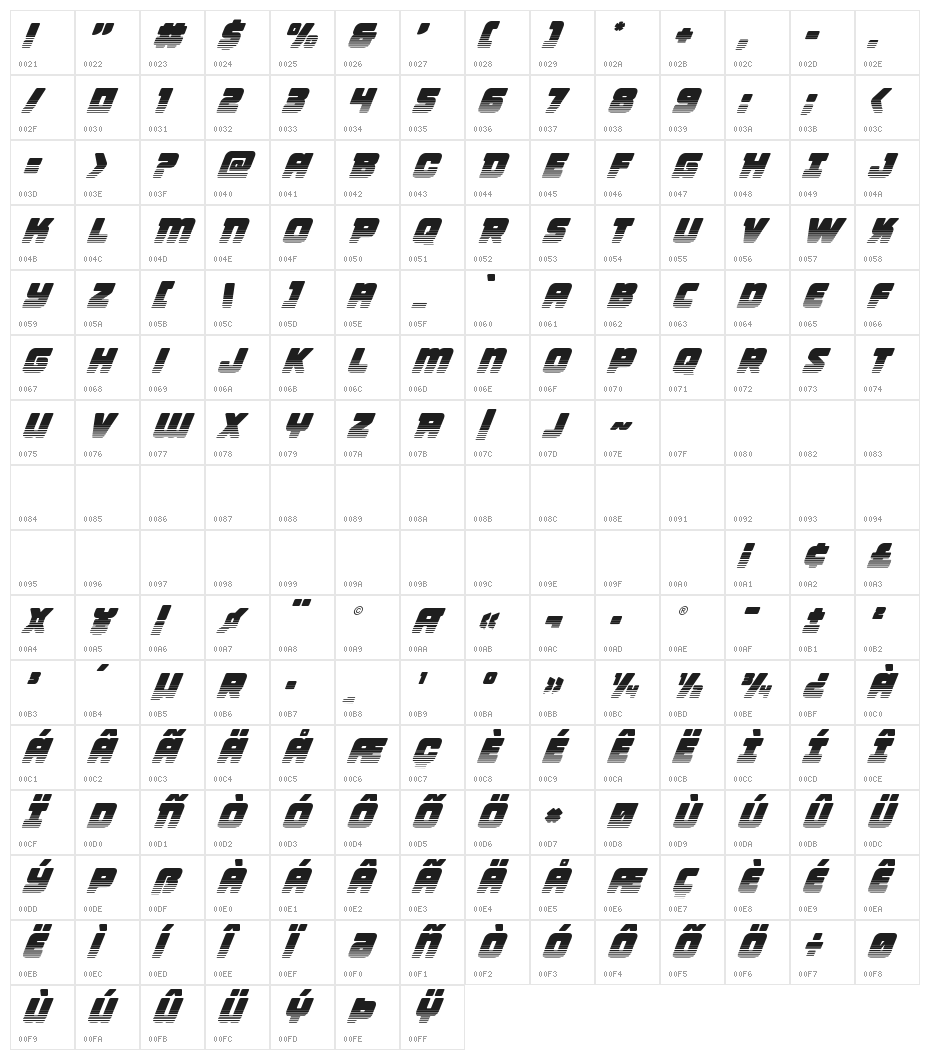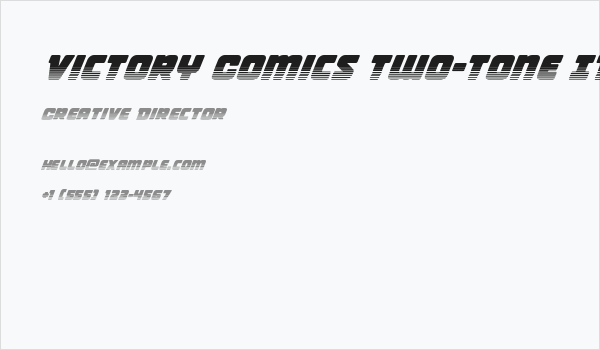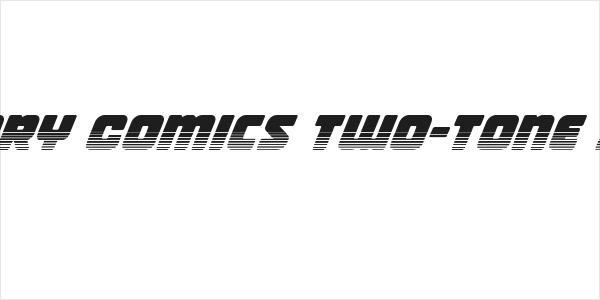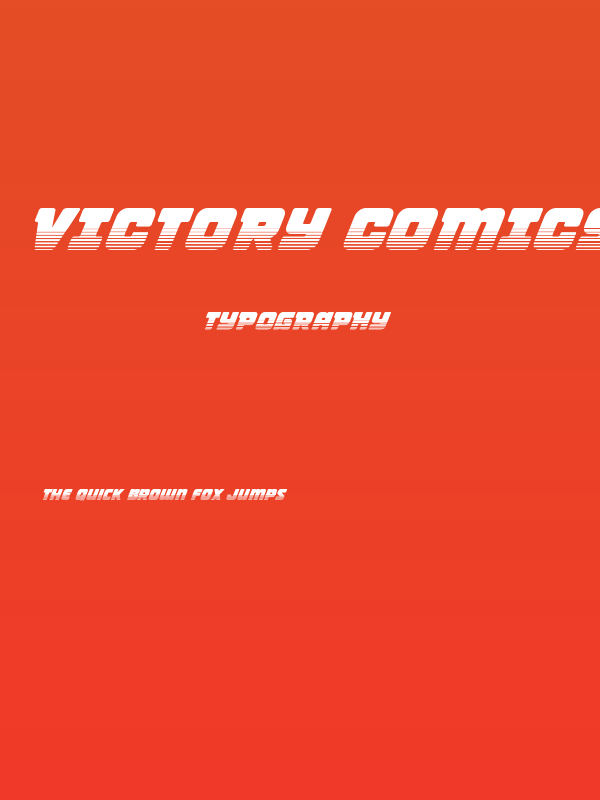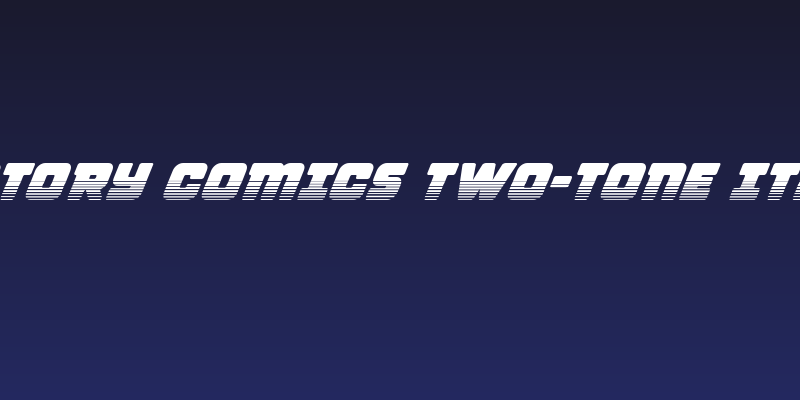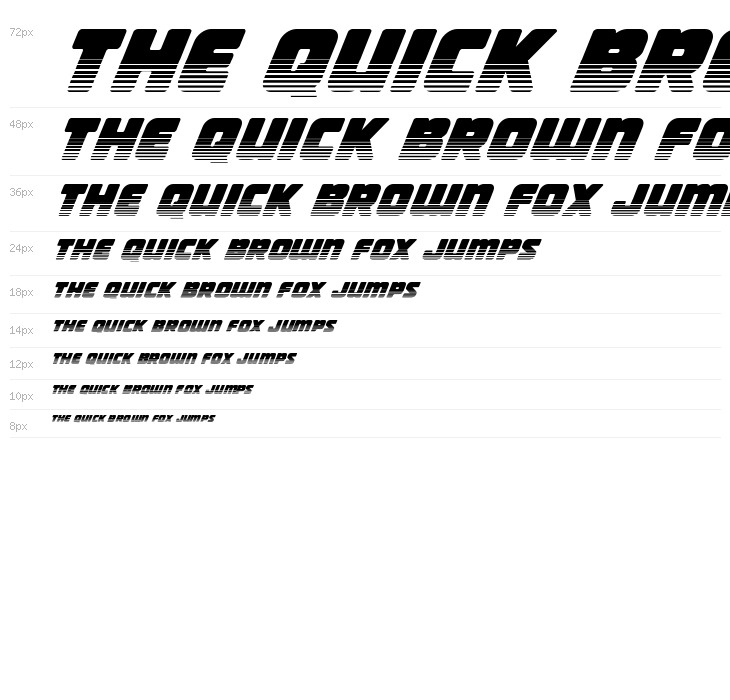
Victory Comics Two-Tone Italic Font
Victory Comics Two-Tone Italic Description
This font features a bold, italicized style with a unique two-tone effect that gives it a dynamic and energetic appearance. The characters are designed with a horizontal striped pattern, creating a sense of movement and speed. The uppercase and lowercase letters maintain a consistent style, with rounded edges and a slightly condensed form. The numbers and special characters follow the same design principles, ensuring uniformity across the font. This font's distinctive look makes it stand out, capturing attention with its modern and playful aesthetic.